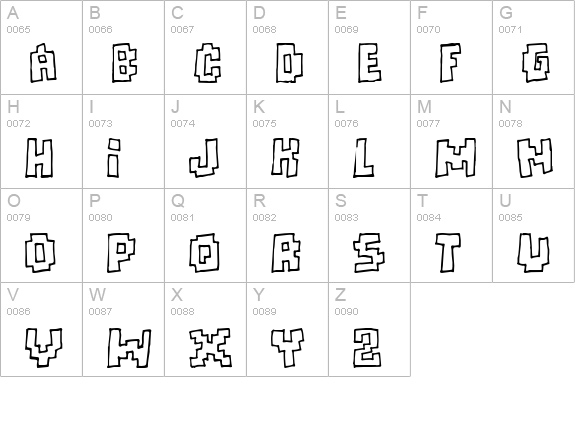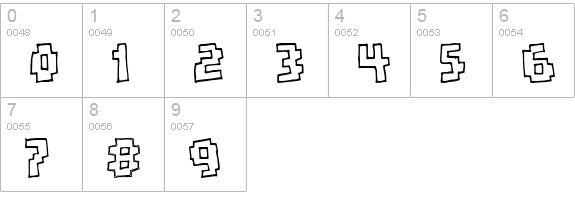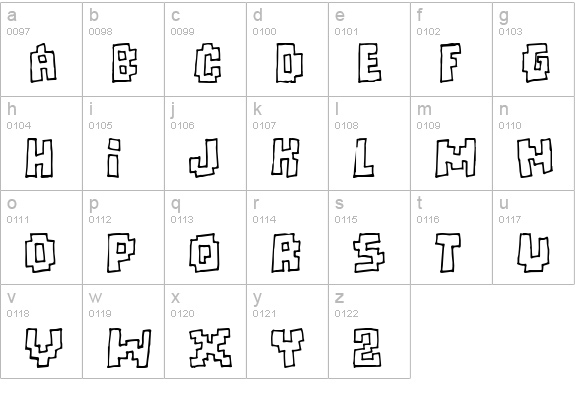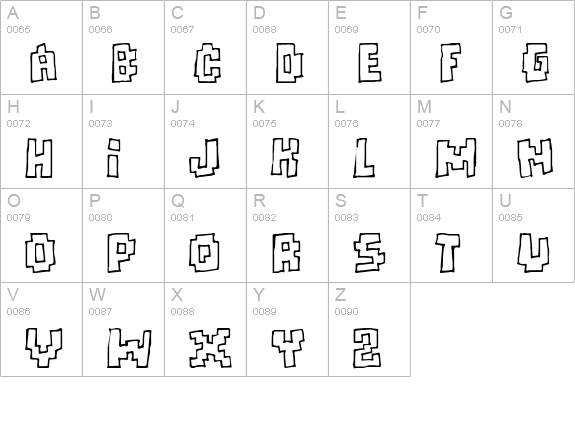
Freaks of Nature font is a whimsical and quirky typeface that is sure to make your designs stand out from the crowd. With its unique and playful characters, this font is perfect for adding a touch of fun to any project. Whether you're creating a poster, logo, or social media graphic, Freaks of Nature font will bring a burst of personality to your work. And the best part? Freaks of Nature font is completely free to download at FontsMarket.com. So go ahead and add this one-of-a-kind font to your collection today and let your creativity run wild with its charming and eye-catching style.